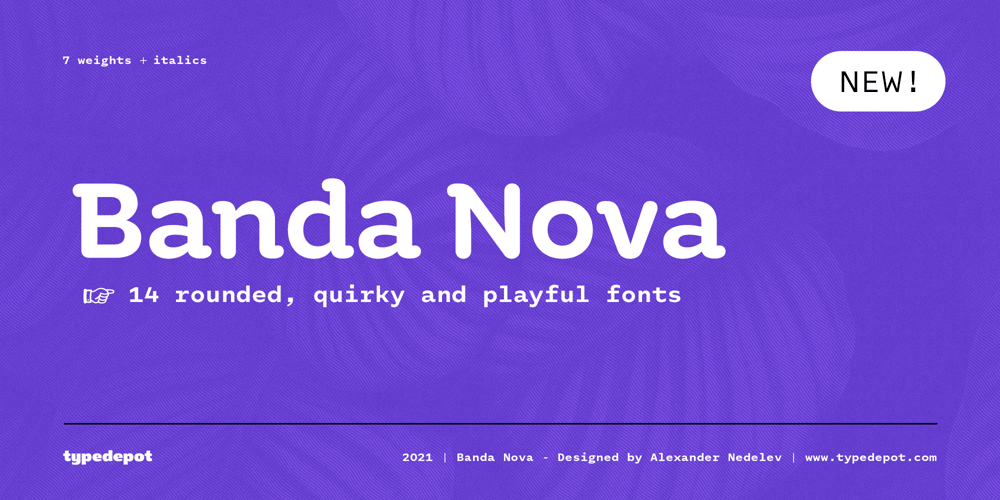
Banda Nova Font Family was designed by Alexander Nedelev and published by Typedepot. Banda Nova contains 13 styles and family package options. Hold on to your hats, there’s a new orchestra in town – the Banda Nova!Banda Nova is a crowd pleaser, feeling equally at home on the retail shelf as well as on the cover of your favorite magazine. The 7 weights included in the package offer a wide variety of styles, with delicate and elegantly thin weights morphing into cute, bulbous giants sure to bring a smile to anyone’s face. This versatility makes Banda suitable for virtually any design project, including logos, headlines, covers, packaging and more.We took the time to reimagine Banda, removing traces of our youthful naivety and expanding on everything that made it so good in the first place. Our team is proud to welcome back one of our earliest typefaces in a refreshed and much-improved rendition/adaptation, now featuring full Cyrillic support and almost twice the number of original characters. Are you ready to take center stage again?Download:PDF Specimen | Trial Fonts